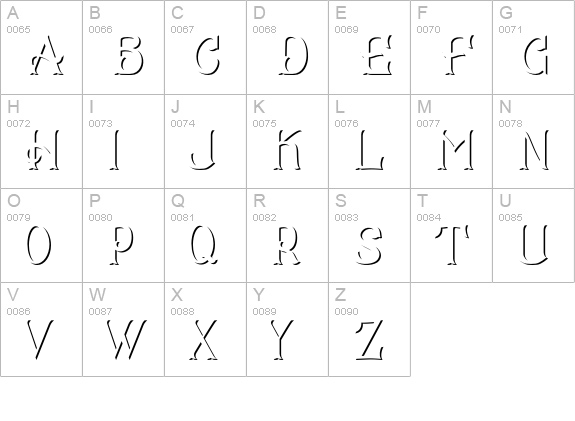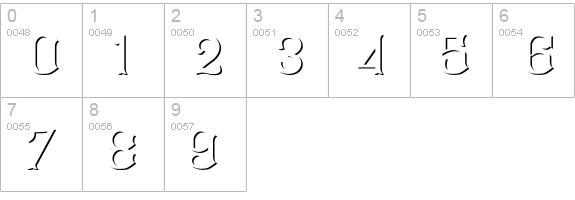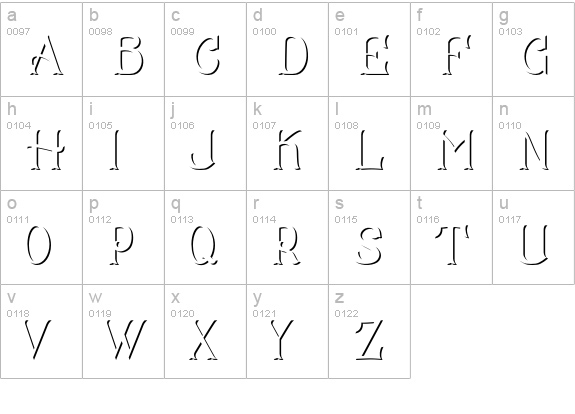
CS Mulan Shadow Font Details
CS Mulan Shadow is a demo font in the Fancy > Decorative category, designed by craftsupplyco. It has been downloaded 68 times and is available for Windows, Mac and Linux.
CS Mulan Shadow font is a unique and versatile typeface that combines elegance with a hint of mystery. Its intricate shadow effect adds depth and character to any text, making it perfect for titles, logos, and branding projects. The font's smooth curves and sharp lines create a striking visual impact that is sure to capture attention.